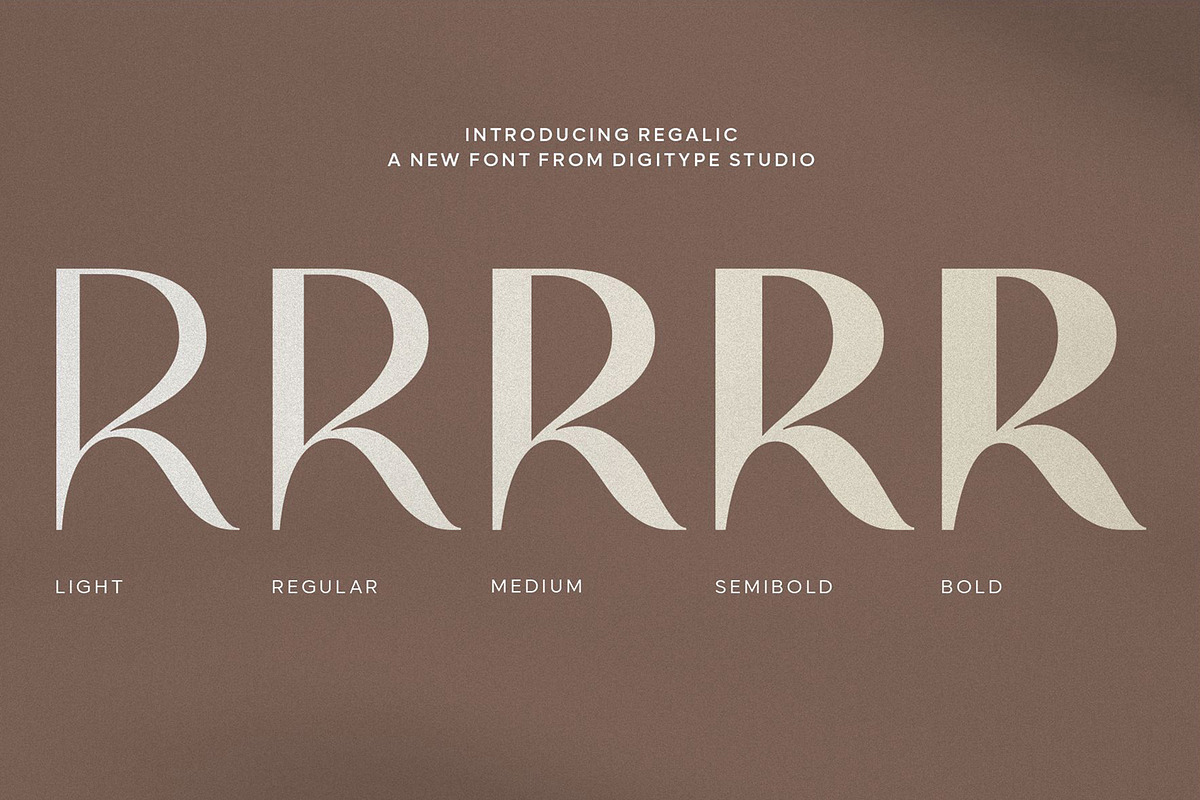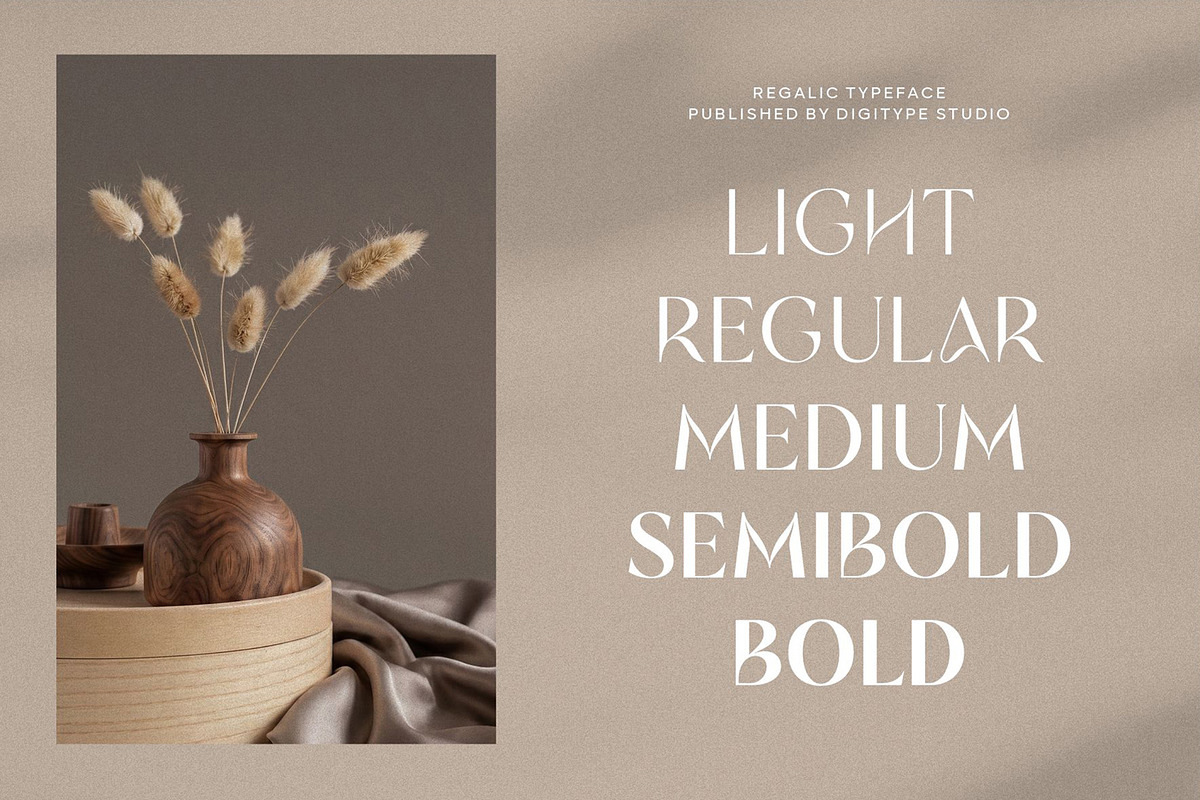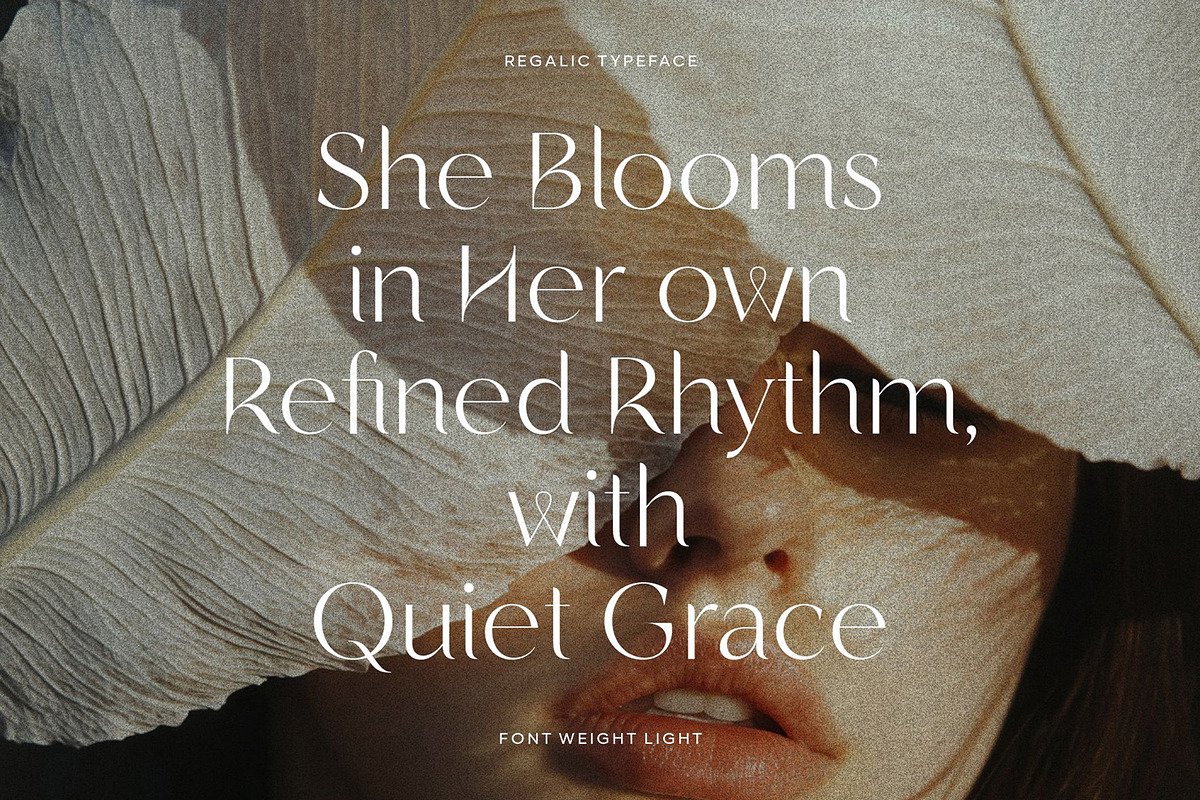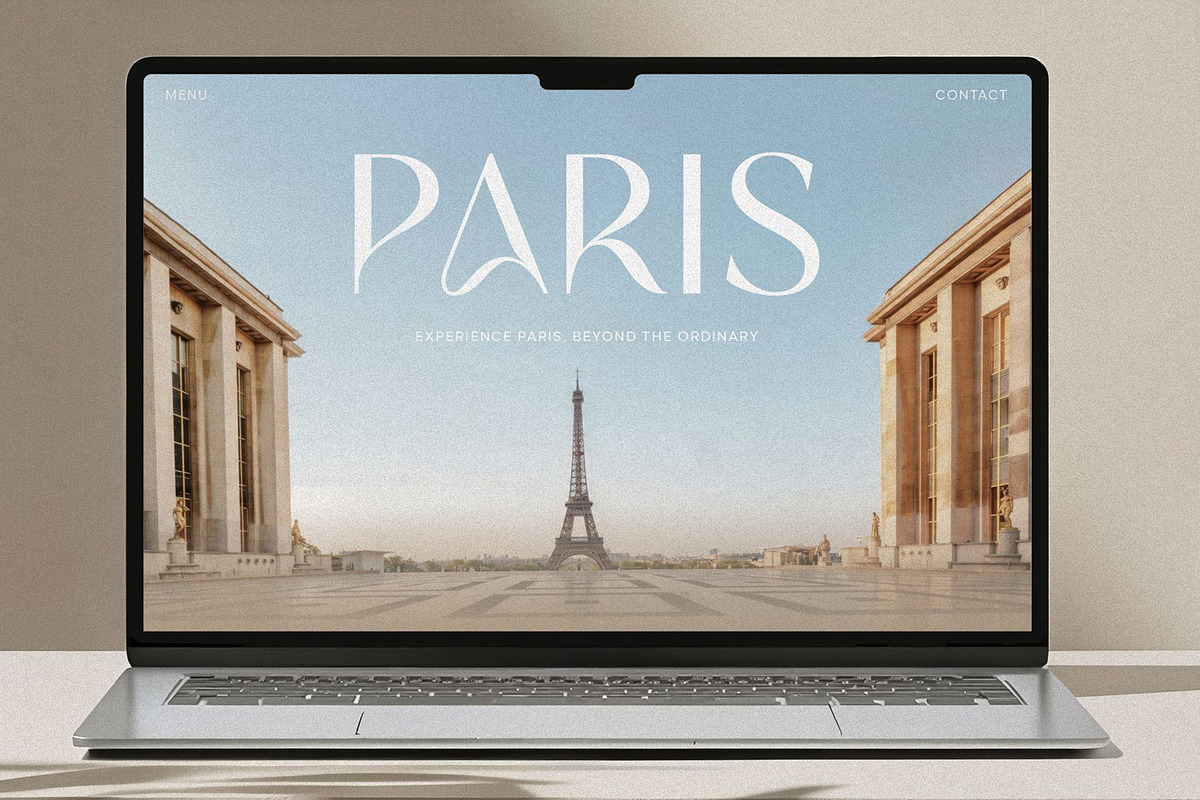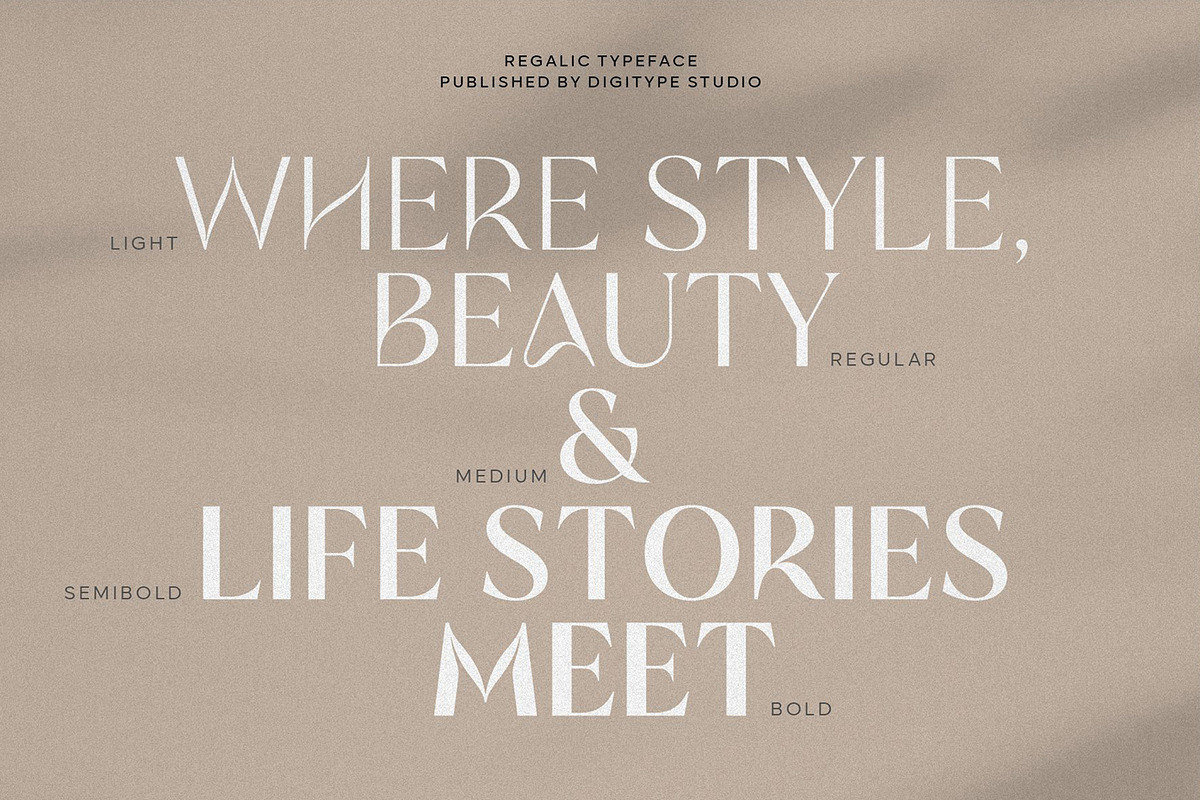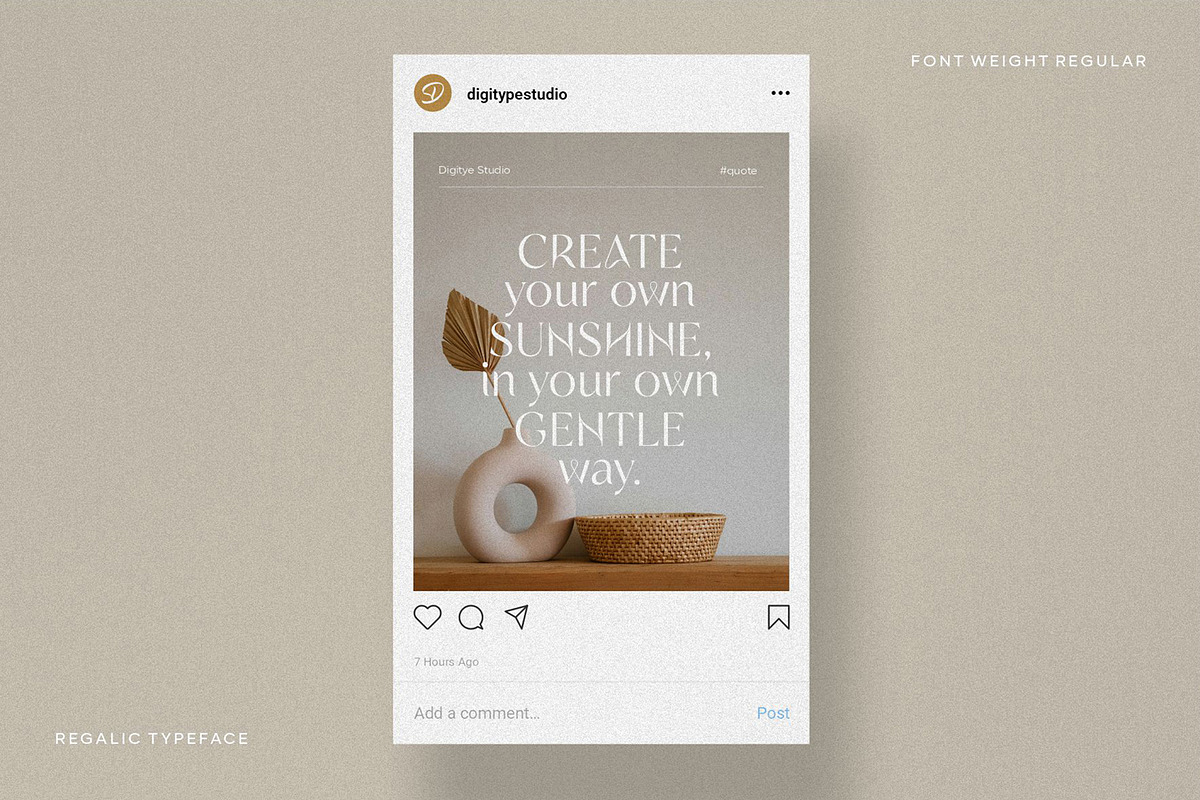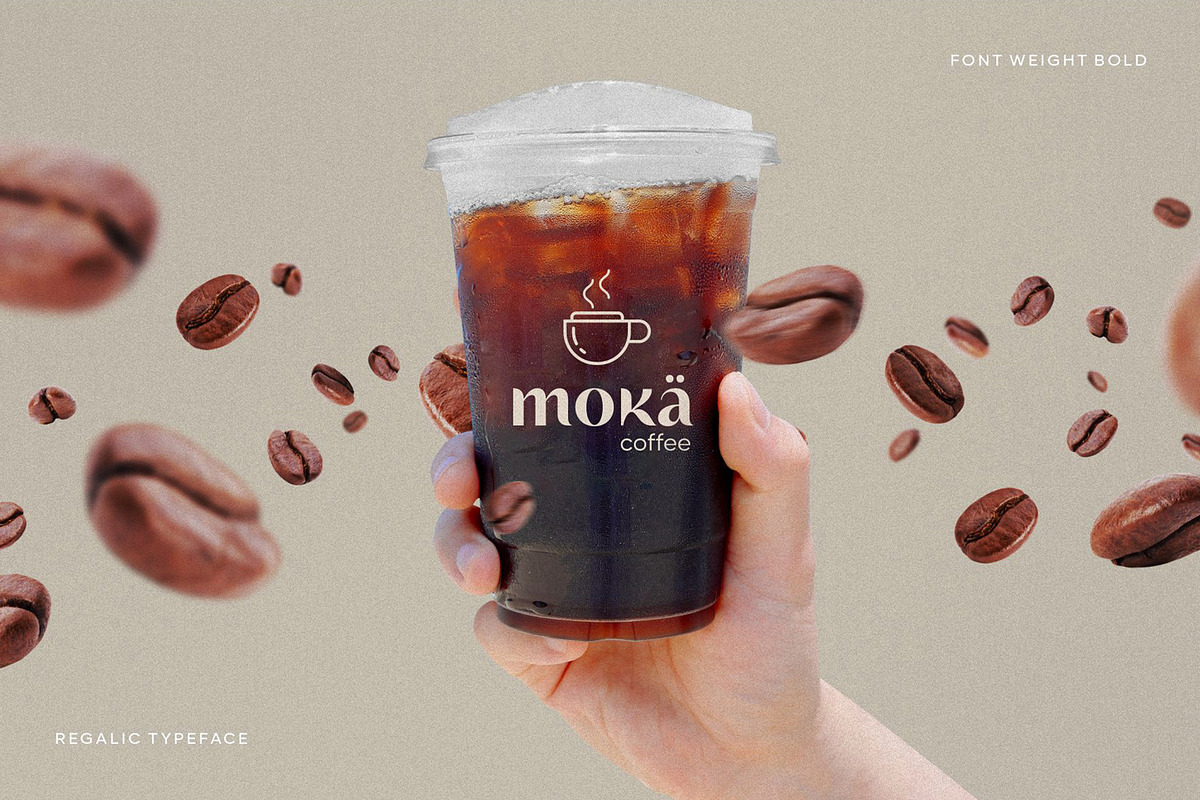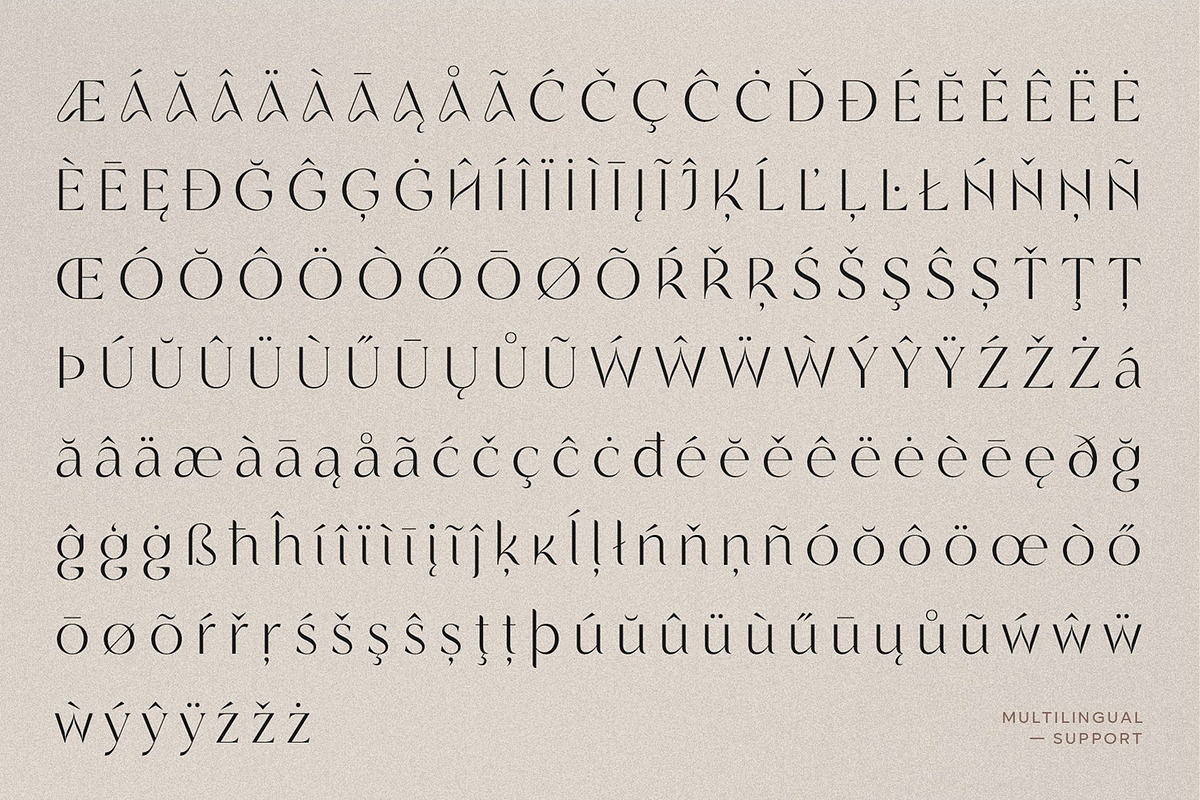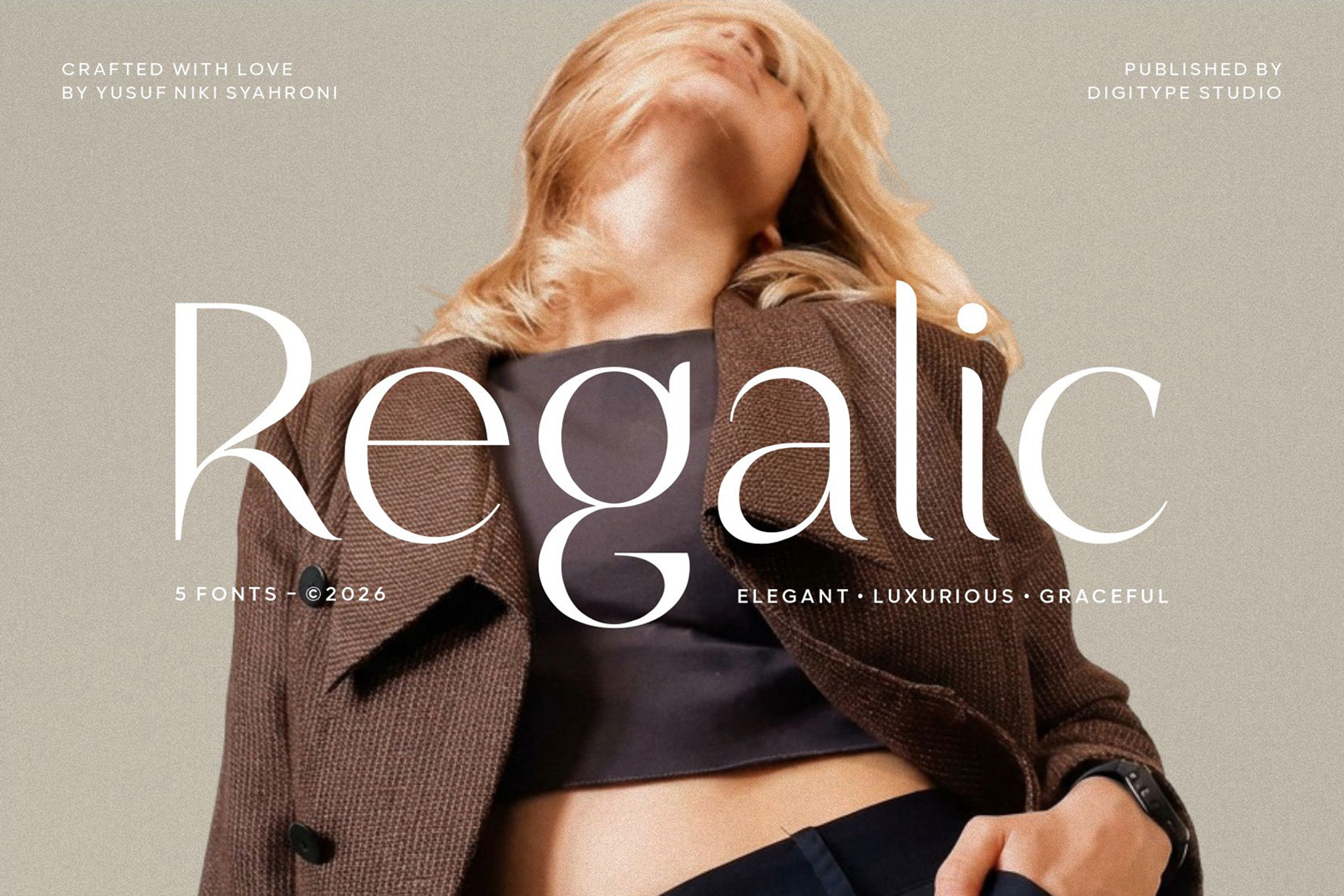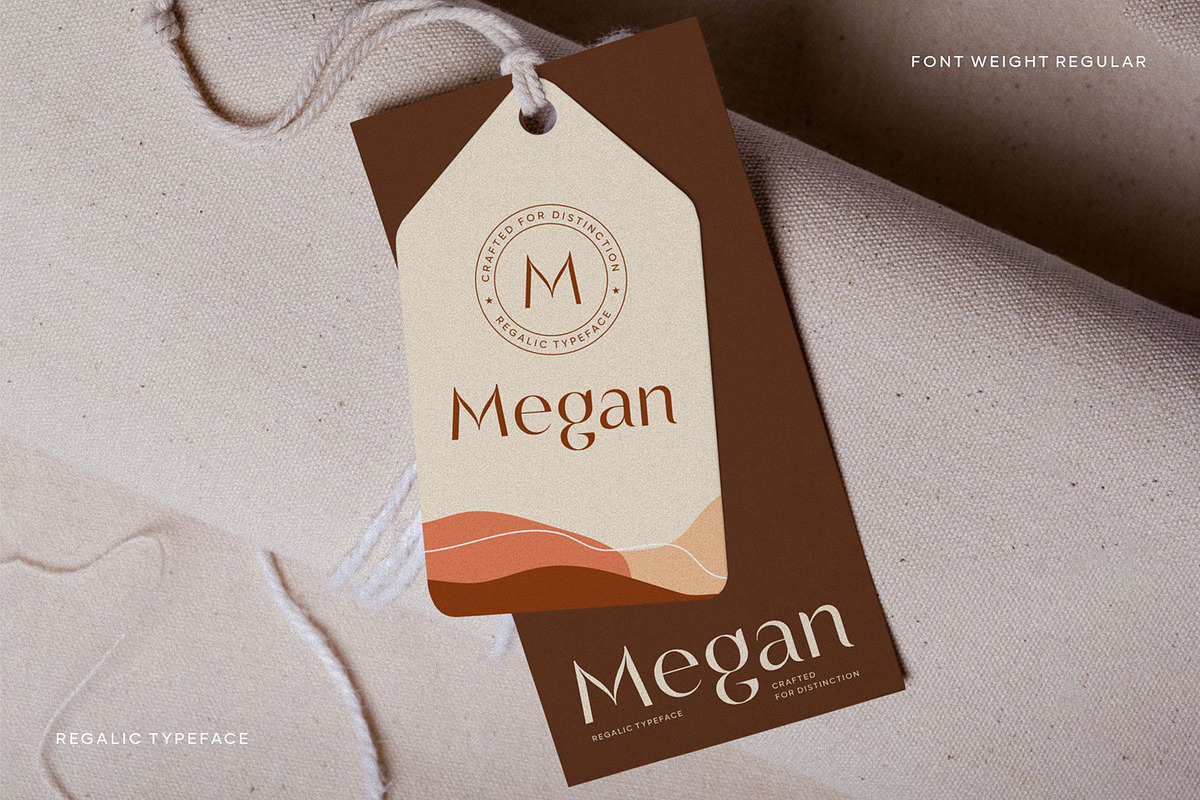
Regalic | Font Family
Regalic is a modern display typeface with a refined yet expressive character. Designed with a sculpted approach, this font features subtle intersections between the bowl, leg, and stem, creating a smooth and continuous flow of form. These details build a distinctive and recognizable letter silhouette, consistently applied across all characters, delivering a strong visual identity beyond mere decoration.
This typeface is crafted to capture attention while creating a strong and memorable impression, making it suitable for a wide range of visual needs. It enhances your projects with an elegant, stylish, and distinctive appeal. With a refined yet controlled style, Regalic offers a balance between modern elegance and unique design character.